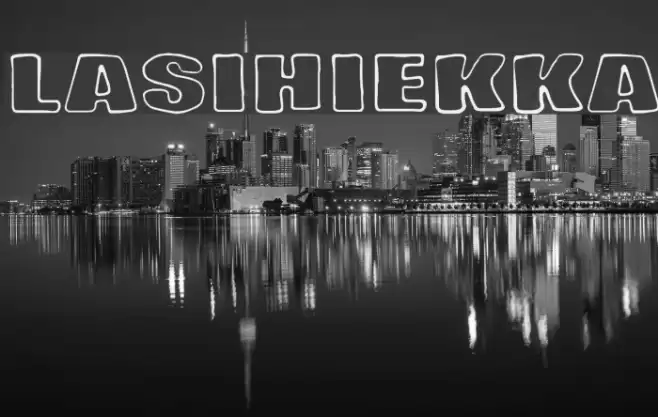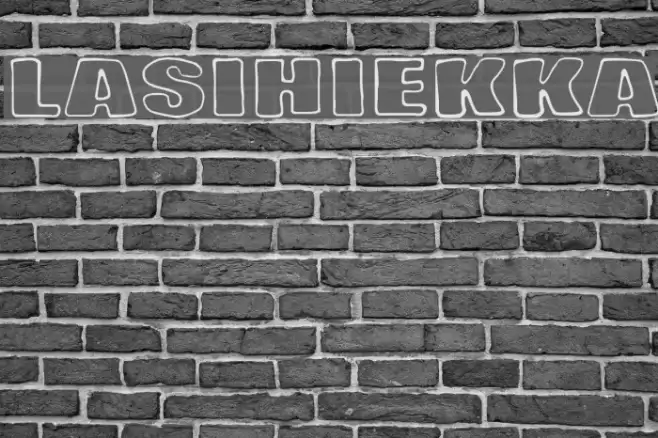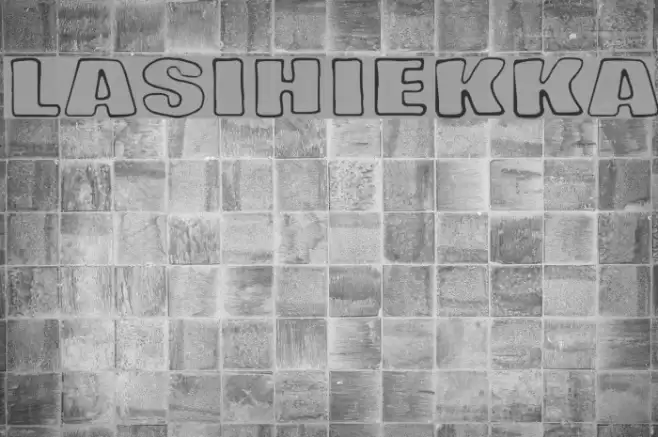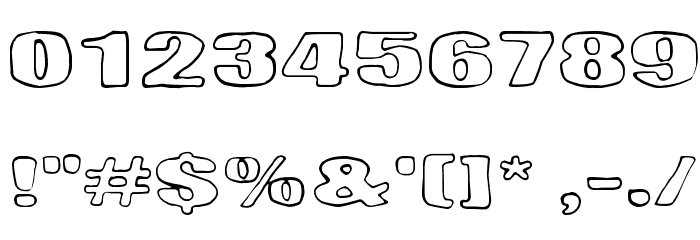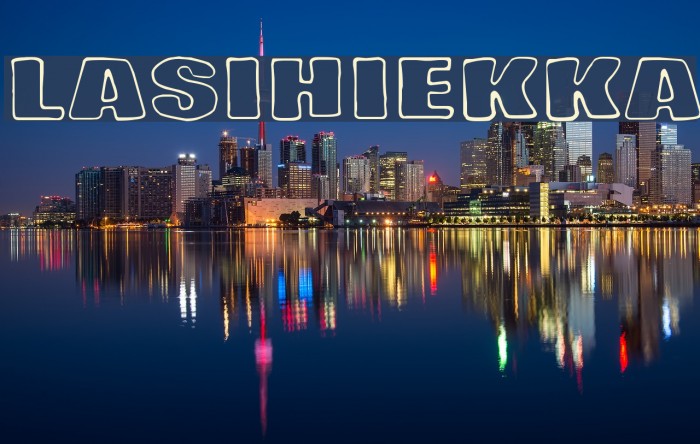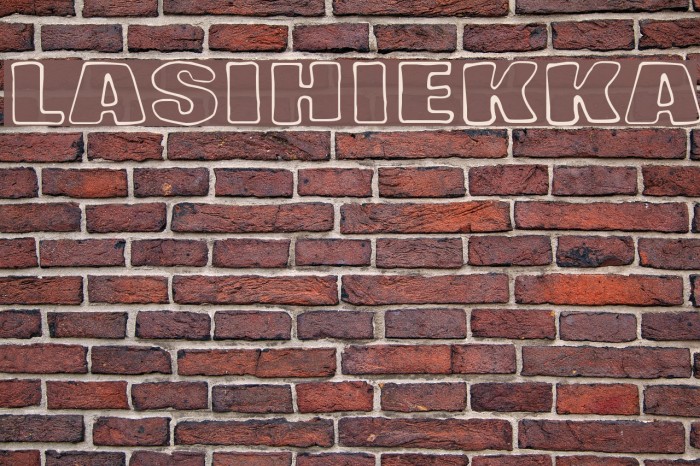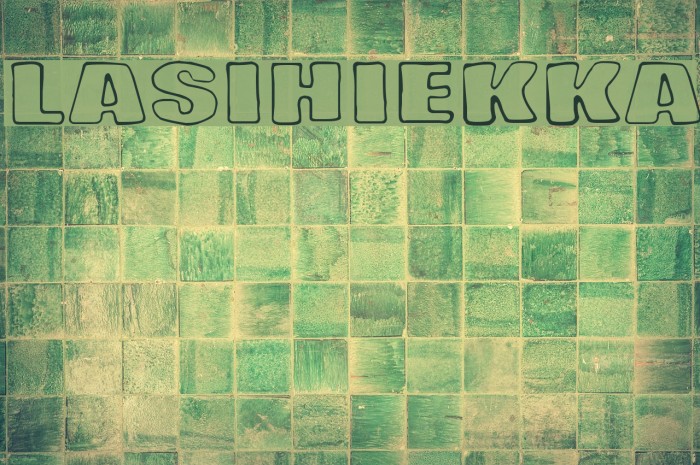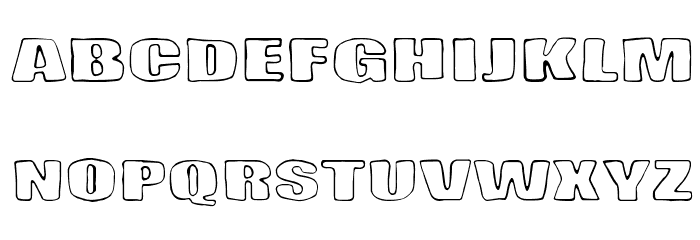
Lasihiekka Font
Lasihiekka Description
This font features a bold, outlined style with a playful and slightly irregular shape, giving it a hand-drawn appearance. The characters are uppercase and have a consistent thickness throughout, with rounded edges that add a friendly and approachable feel. The numbers and special characters follow the same design, maintaining uniformity across the set. This font is ideal for projects that require a fun and casual vibe, such as children's books, posters, or creative branding. Its unique style makes it stand out, while the clear outlines ensure readability even at smaller sizes.
A bold, outlined font with a playful, hand-drawn style.
- Proposed Projects: Children's books, posters, creative branding, casual invitations.
- Overall Style: Playful, Casual, Hand-drawn
- Use Case: Headlines, Posters, Creative Branding